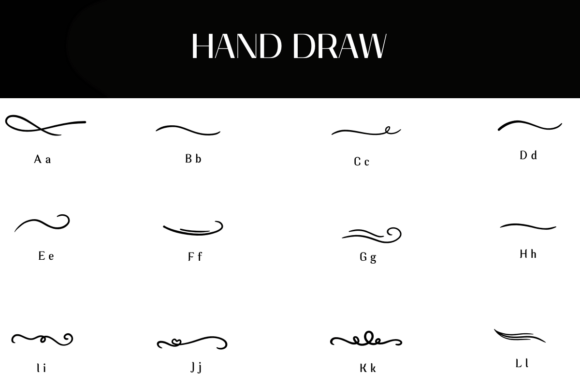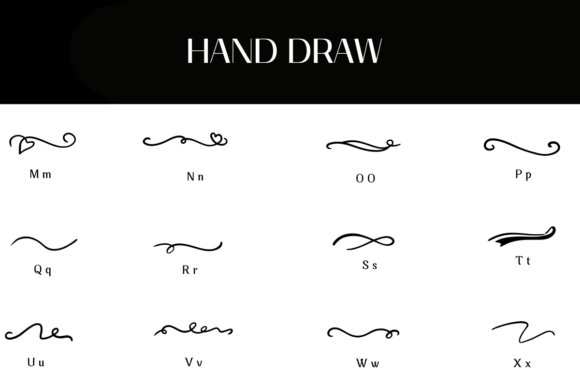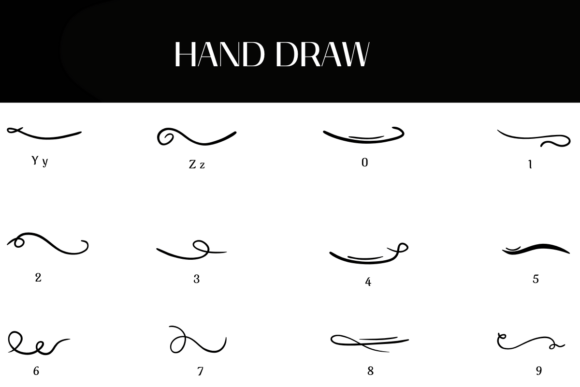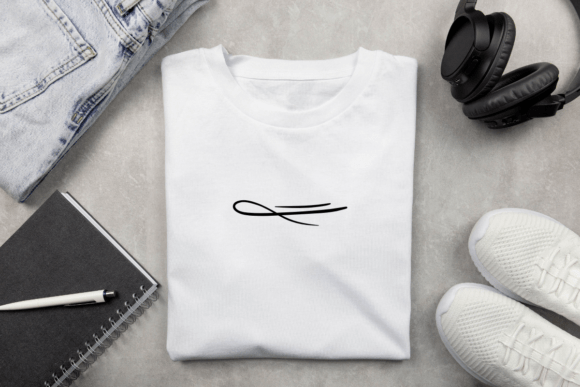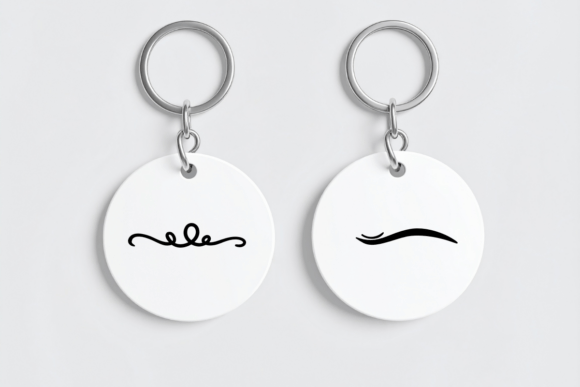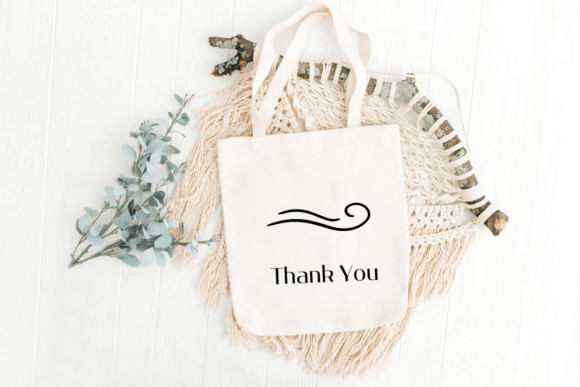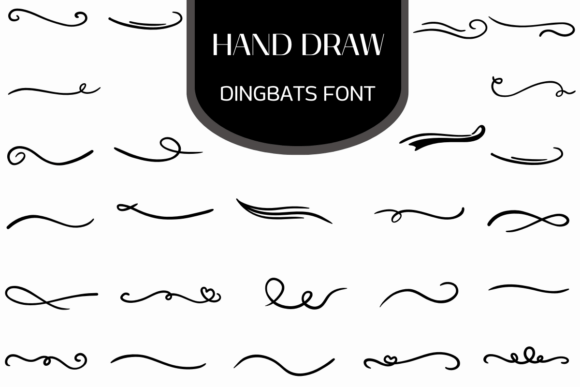
Elevate Your Designs with the Exquisite Hand Draw Dingbats Font
Are you looking for a way to add a touch of elegance and sophistication to your designs? Look no further than the Hand Draw Dingbats Font, a stunning collection of decorative elements that will take your work to the next level. This utility font features a diverse range of hand-drawn swirls, swooshes, flourishes, and heart accents that mimic the beauty of elegant penmanship.
The Beauty of Hand-Drawn Elements
The Hand Draw Dingbats Font is a treasure trove of exquisite decorative elements, carefully crafted to add a touch of refinement to any project. Each dingbat is meticulously drawn to resemble the fluid strokes of a pen, giving your designs a warm, handcrafted feel. From delicate swirls to intricate flourishes, these elements are perfect for adding a touch of sophistication to your work.
Versatile and Easy to Use
One of the best things about the Hand Draw Dingbats Font is its versatility. These decorative elements can be used in a variety of ways, from emphasizing text to creating dividers, or adding a delicate touch to any project. Whether you’re a designer, crafter, or DIY enthusiast, this font is an invaluable asset that will help you create stunning works of art.
The possibilities are endless when it comes to using the Hand Draw Dingbats Font. Here are just a few ideas to get you started:
- Use these swirls as beautiful text separators to add a touch of elegance to your headings and subheadings.
- Add underline accents to your headings to give them a refined and artistic edge.
- Use these dingbats as corner elements on invitations, certificates, and other formal documents.
- Frame important quotes or statements with these beautiful flourishes.
- Incorporate these elements into your logo design or branding materials to add a touch of sophistication.
The Hand Draw Dingbats Font is perfect for designers and crafters who want to add a touch of elegance to their work. Whether you’re creating wedding stationery, crafting personalized typography art, or designing elegant branding materials, this font is an essential tool that will help you achieve your goals.
Instantly Add a Touch of Handcrafted Elegance
With the Hand Draw Dingbats Font, you can instantly add a touch of handcrafted elegance to your designs. These decorative elements are carefully crafted to give your work a warm, refined feel that will set it apart from the rest. Whether you’re a seasoned designer or a DIY enthusiast, this font is an invaluable asset that will help you create stunning works of art.
Key Features of the Hand Draw Dingbats Font
- Diverse range of hand-drawn swirls, swooshes, flourishes, and heart accents.
- Mimics elegant penmanship for a refined and artistic edge.
- Versatile and easy to use in a variety of design projects.
- Perfect for designers, crafters, and DIY enthusiasts.
- Instantly adds a touch of handcrafted elegance to any design.
In conclusion, the Hand Draw Dingbats Font is a must-have for designers and crafters who want to add a touch of elegance and sophistication to their work. With its diverse range of hand-drawn decorative elements, versatility, and ease of use, this font is an invaluable asset that will help you create stunning works of art. So why wait? Get your hands on the Hand Draw Dingbats Font today and elevate your designs to the next level!